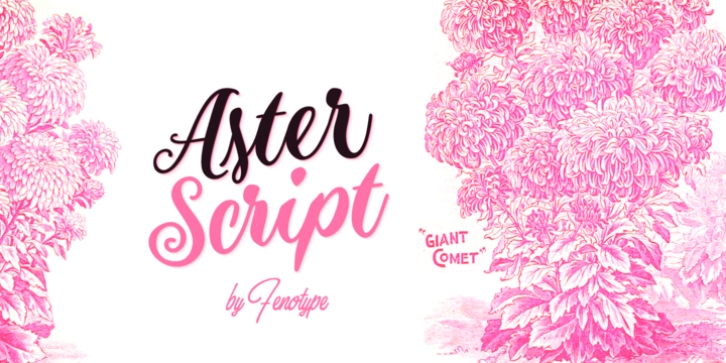
Publisher: Fenotype
Aster Script is a modern calligraphy script with high contrast. Aster Script is a hand drawn font and it's great for any display use from packaging to poster and logotype to headline. Aster Script is equipped with contextual alternates and ligatures that are automatically on. The feature is set under Standard Ligature function. In addition Aster Script has Swash alternates for every standard character. Aster Script has wide language support and special characters are PUA encoded.